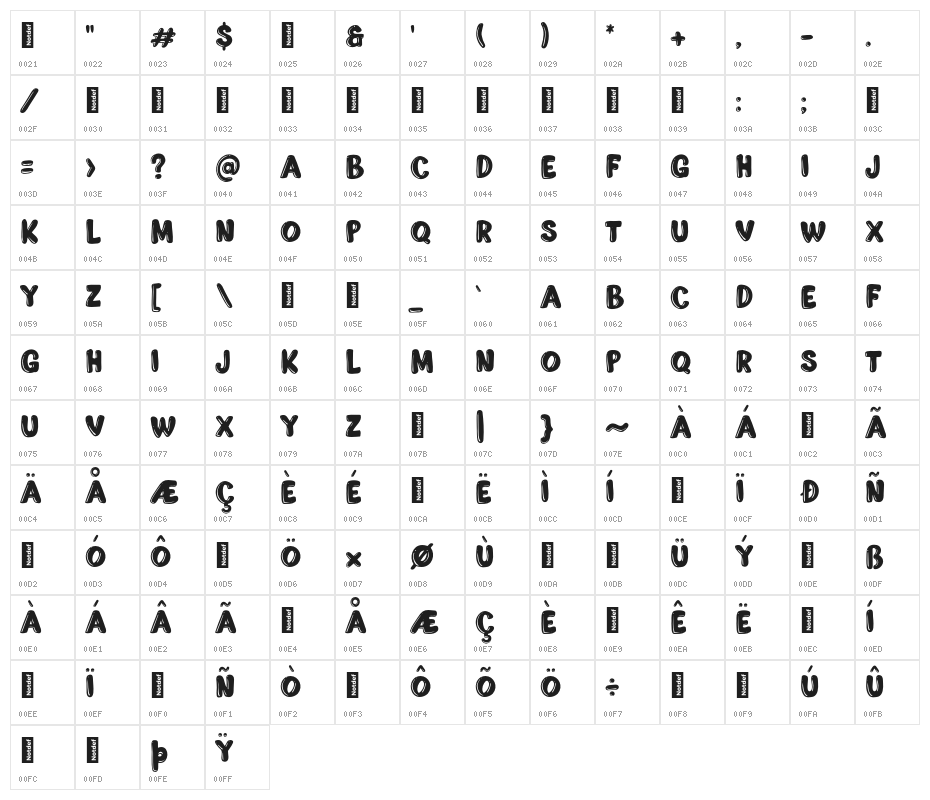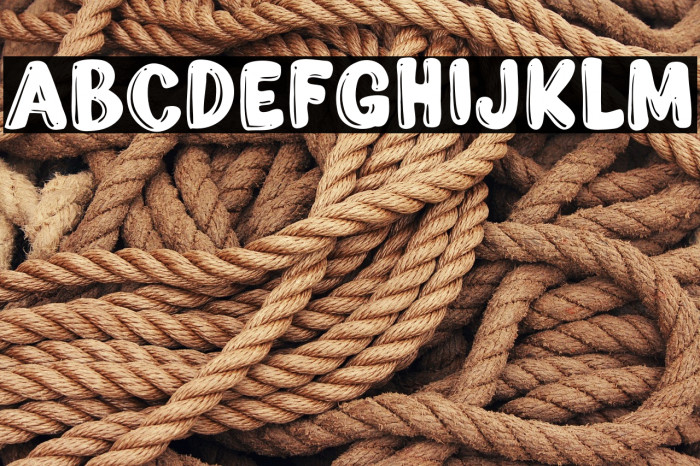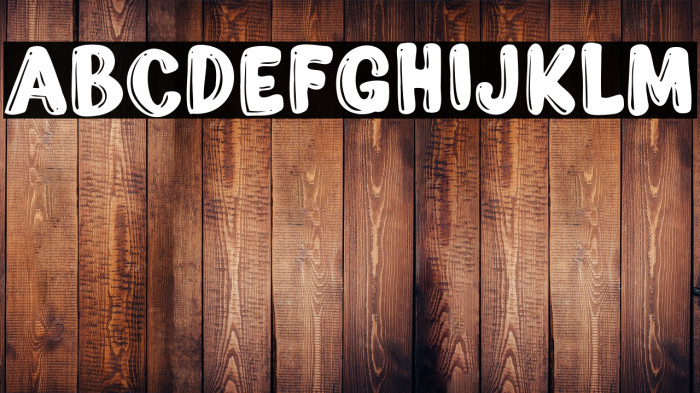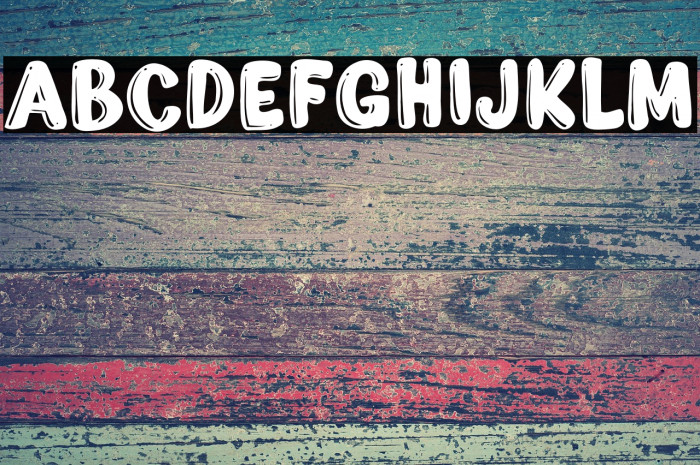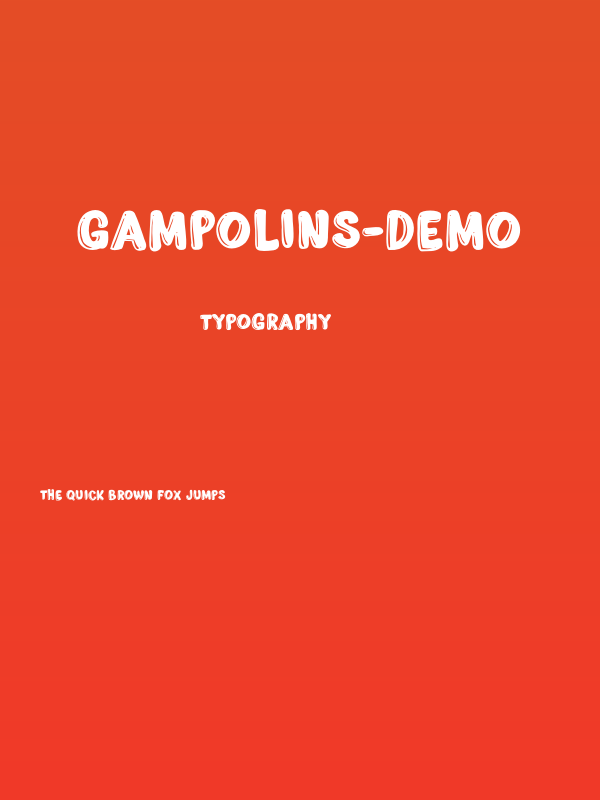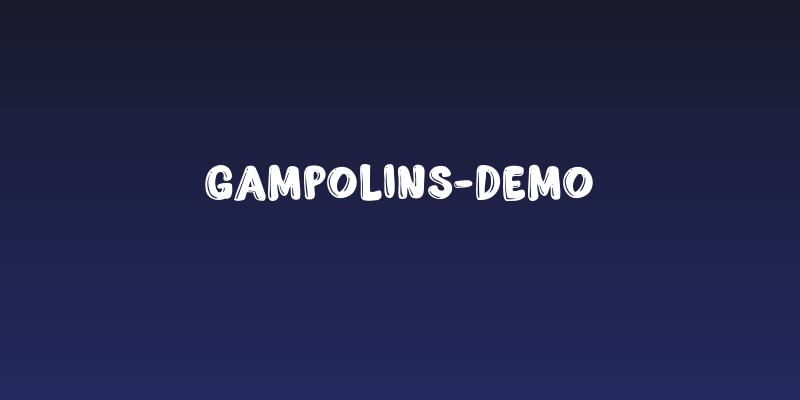
Gampolins-Demo Font
Gampolins-Demo Description
This font features a bold and playful design with thick, rounded strokes that give it a friendly and approachable appearance. The characters are slightly condensed, enhancing the compactness of the text while maintaining readability. The font's high contrast between thick and thin strokes adds a dynamic and energetic feel, making it suitable for eye-catching designs. The overall style is modern and decorative, with a touch of whimsy that makes it ideal for creative projects. The character spacing is normal, ensuring clarity and legibility even in larger text blocks.
| Proposed Projects | Ideal for children's books, playful branding, posters, and social media graphics. |